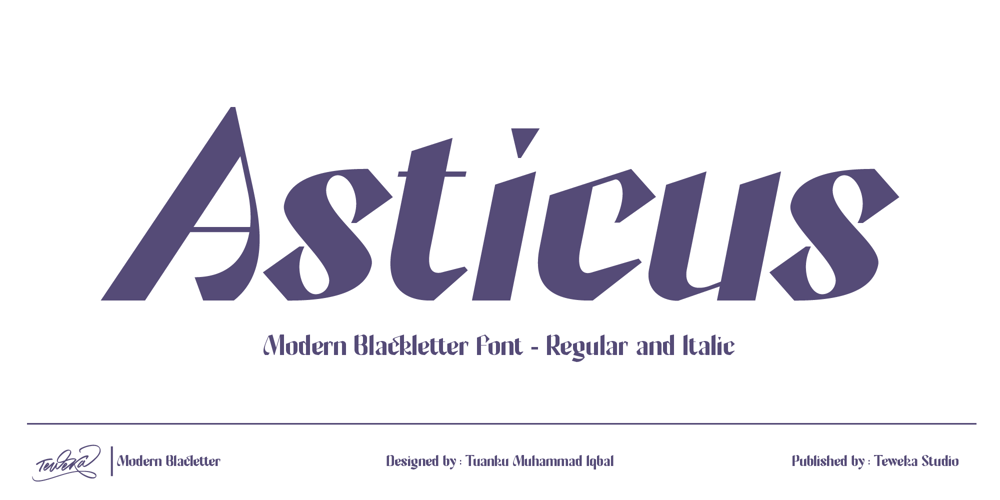
Asticus Font Family was designed by Tuanku Muhammad Iqbal and published by Teweka. Asticus contains 2 styles and family package options. New Fresh! Asticus was born by adapting the Blackletter style. This font is very distinctive, with lines that still maintain the blackletter style. This font has 372 glyphs and is multilingual. and some ligatures in it. This font is very suitable for various product designs, t-shirts, branding and others.